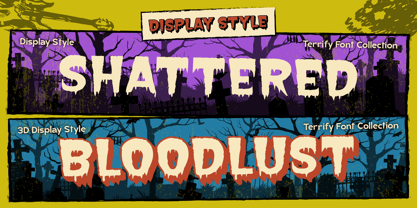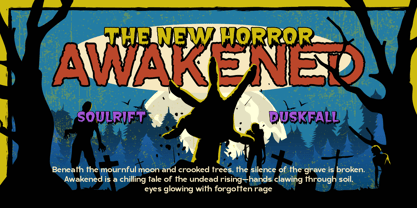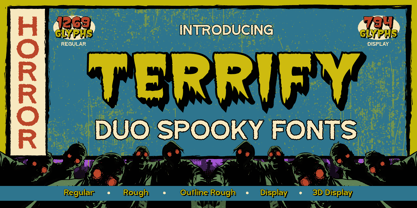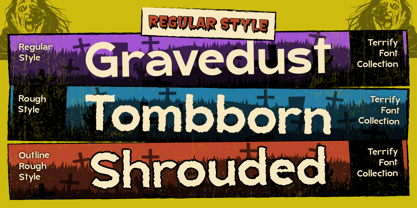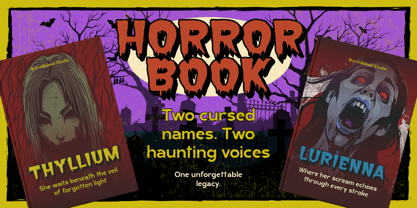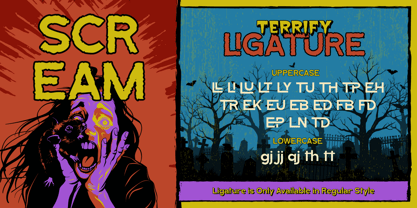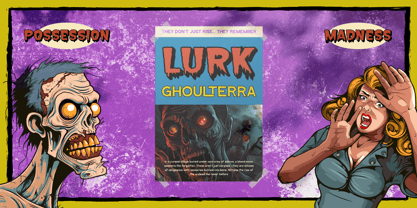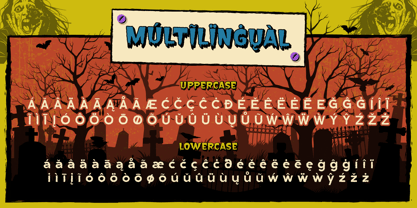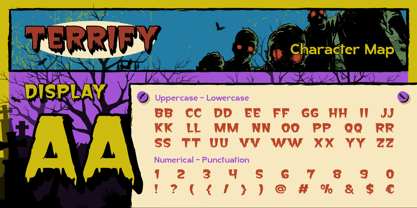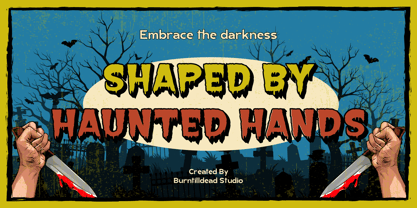
Terrify
by Burntilldead
The Terrify Font Family was designed by Eric Kurniawan and published by Burntilldead. Terrify contains 5 styles and family package options. More about this family
Proudly present, Terrify — a horror-themed font designed to bring eerie, mysterious, and gothic vibes into your designs.
Terrify comes with 2 main styles: Display and Regular. The Regular style includes 3 variations: Regular, Rough, and Outline Rough, while the Display style includes Display and 3D Display.
With cracked textures and a bloody feel, Terrify delivers a theatrical and spine-chilling look — perfect for horror movie titles, Halloween invitations, creepy book covers, dark-themed merchandise, mystery branding, or even gothic/metal band logos. Think tombstone engravings, old horror posters, and vintage thriller vibes all in one font.
Features:
• A - Z set (Uppercase & Lowercase)
• Number
• Punctuation
• Ligatures
• Multilingual
Designers: Eric Kurniawan
Foundry: Burntilldead